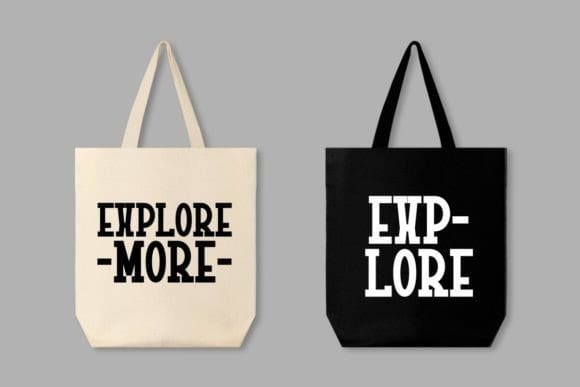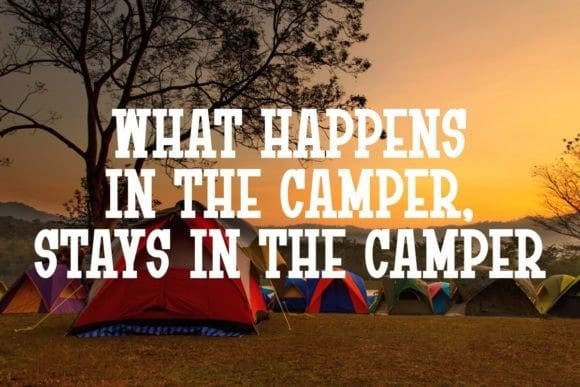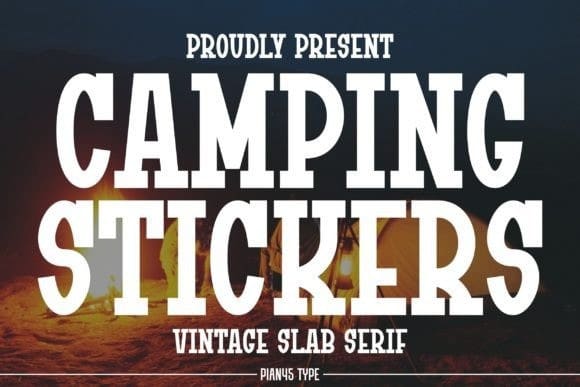
Camping Stickers Font
Camping Stickers Font is a modern condensed and vintage slab serif font. This font combines modern aesthetics wit a sleek , condensed look, making it a must-have for your design toolkit. Perfect for quotes, posters, backgrounds, sports apparel, t-shirts, mugs, tote bags and pillows.